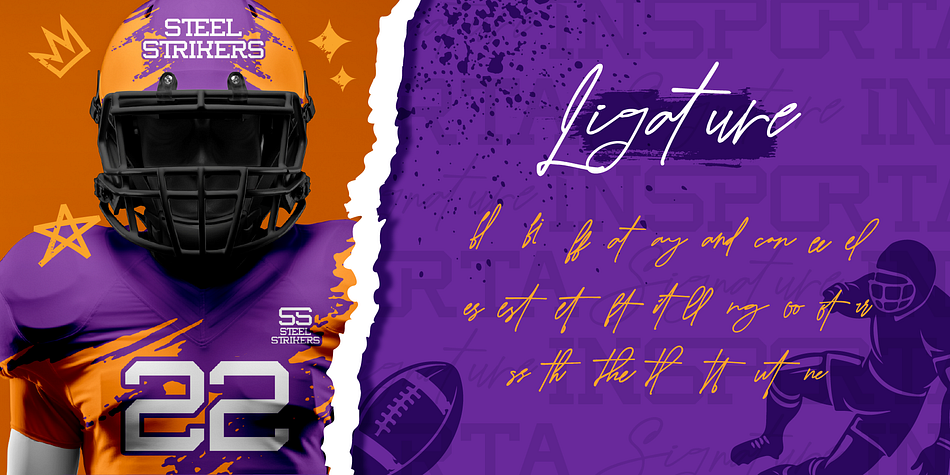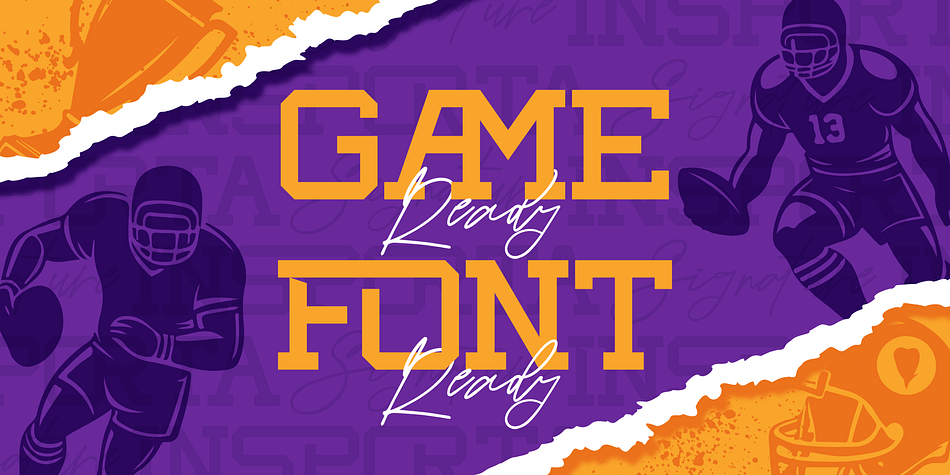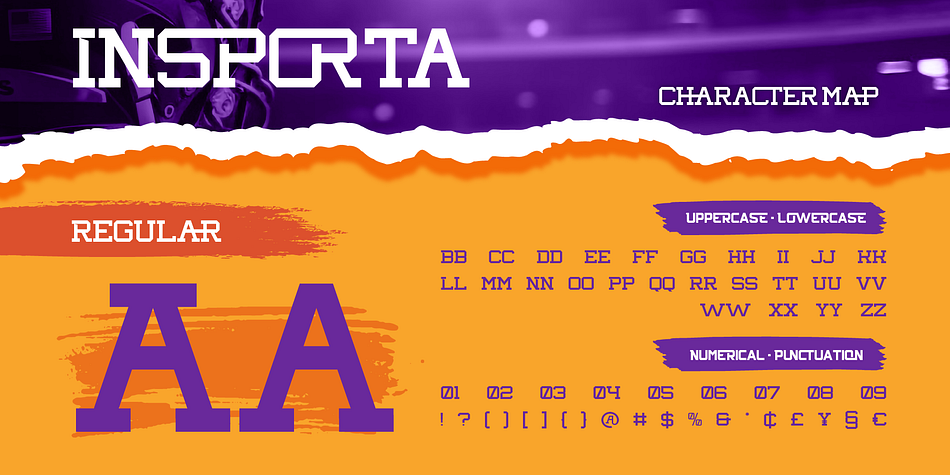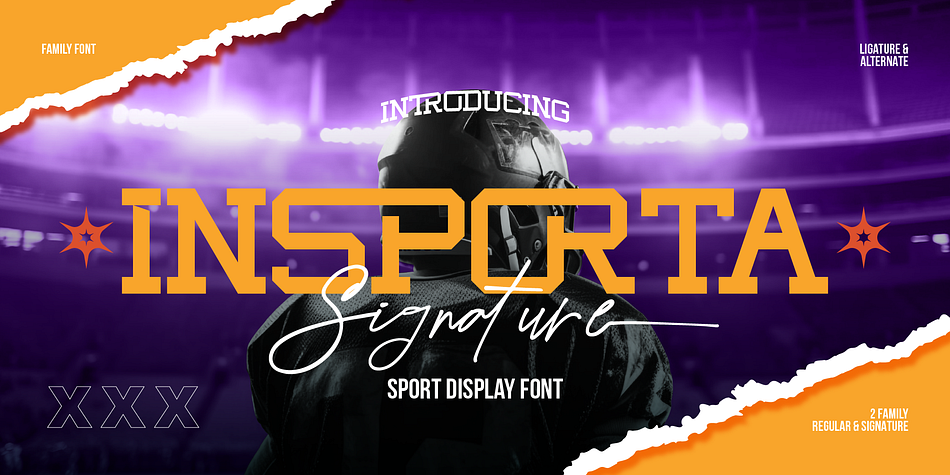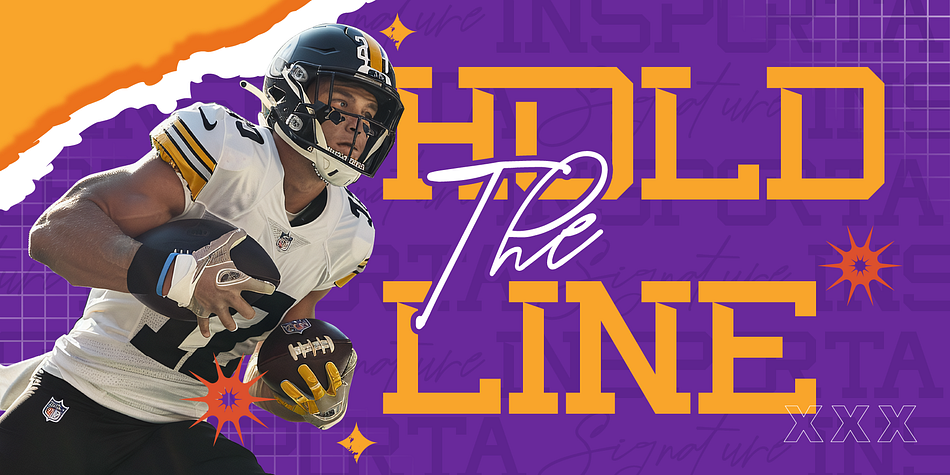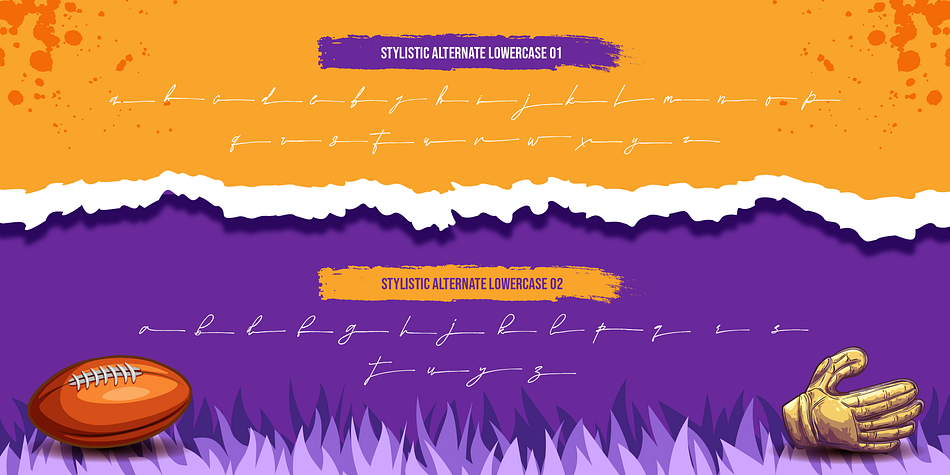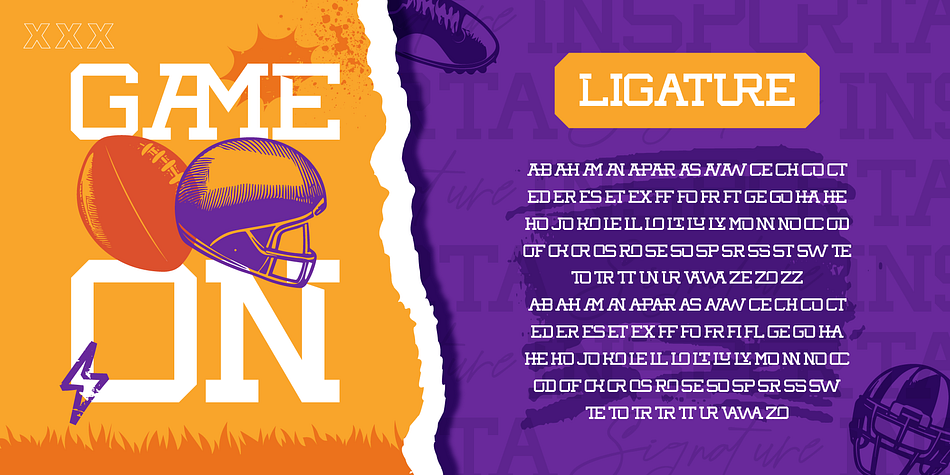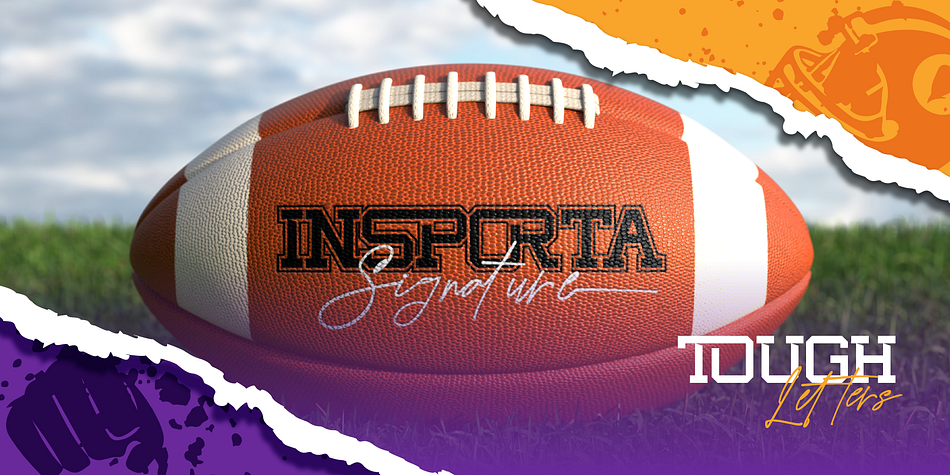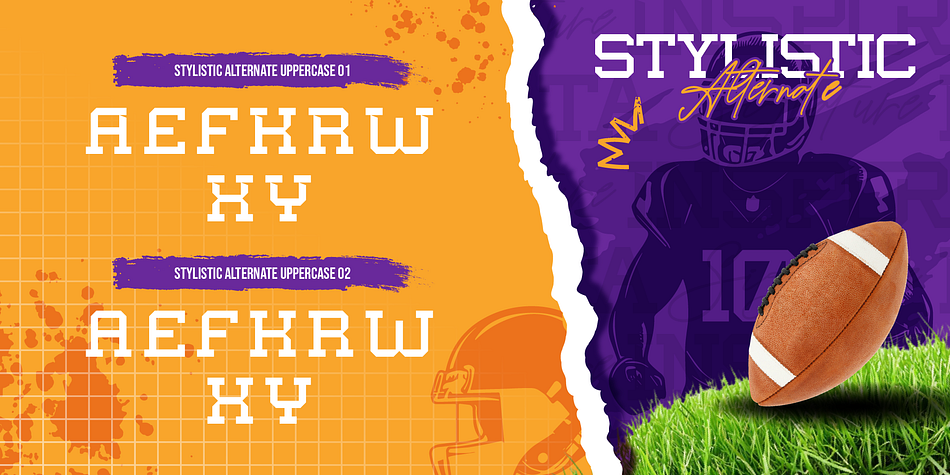
Insporta Signature
Designed by Eric Kurniawan, Insporta Signature is a display slab font family. This typeface has two styles and was published by Burntilldead.
Insporta Signature is a bold and energetic font duo designed to bring the spirit of competition into every design. This sporty typeface combines a strong all-caps serif font that inspired by college varsity aesthetic with a stylish signature script. Perfect for sports branding, athletic posters, team logos, or game day merchandise, Insporta Signature combines modern varsity typeface vibes with a personal, handwritten touch. Whether you’re designing for a football match, a college event, or a fitness brand, this sports team font has got you covered. With its classic varsity vibe and modern handwritten twist, Insporta Signature delivers a “game day ready” look that stands out.
- Uppercase & Lowercase (all caps for serif)
- Number
- Punctuation
- Alternates
- Insporta Signature Characters Map